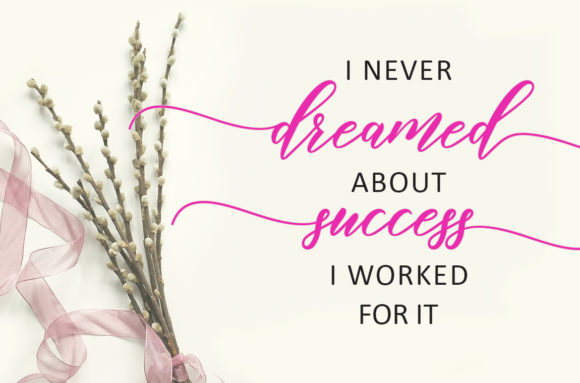
Introduction to Halley Script Font
Have you ever stared at a blank canvas, waiting for the perfect font to bring your creative project to life? That’s exactly what happened to me the first time I laid eyes on the Halley Script Font. Its elegant, handwritten style and charming swashes had me hooked from the very start. I knew right then that I had found a valuable design resource that would elevate my work to the next level.
As a designer, you’re always on the lookout for high-quality fonts that will make your designs stand out. And that’s exactly what the Halley Script Font offers – a beautifully crafted, free download that’s perfect for any creative project. With its transparent background and delicate flourishes, it’s the perfect addition to any design. In this article, we’ll take a closer look at what makes the Halley Script Font so special and why it’s a must-have in your design arsenal.
Key Features of Halley Script Font
- Unique, elegant script design ideal for creative projects and design resources.
- High-quality font with smooth connections between letters, perfect for adding a touch of sophistication to your work.
- Halley Script Font features a transparent background, allowing for seamless integration with any background image or color.
- Designed to be highly legible, even at small font sizes, making it perfect for titles, headings, and other display text.
- High-resolution font, suitable for use in print and digital design applications, including business cards, invitations, and more.
Honest Review: Halley Script Font
I recently had the chance to work with the Halley Script Font, and I must say it’s a fantastic addition to any designer’s toolkit. This free download is perfect for creative projects that require a touch of elegance and sophistication.
- ✨ High-quality design: The Halley Script Font is beautifully crafted, with smooth lines and a cohesive look that makes it perfect for headings and titles.
- ✨ Versatility: It works well with both light and dark backgrounds, making it a great choice for a wide range of design projects.
However, I do have a few minor quibbles ⚠️. The font doesn’t include as many weights as I would have liked, which can make it a bit limiting for some design projects. Additionally, the font doesn’t come with a license for commercial use, which may be a concern for some designers.
Overall, I’m really impressed with the Halley Script Font. It’s a high-quality design resource that’s perfect for designers who want to add a touch of elegance and sophistication to their creative projects. If you’re looking for a beautiful, free font that’s easy to use, I would definitely recommend giving the Halley Script Font a try.
Halley Script Font: A Comprehensive Guide
To maximize the effectiveness of the Halley Script Font, use it sparingly and strategically. Pair it with a clean and simple design to let the font shine. Experiment with different font sizes, colors, and styles to create a unique look. Finally, use the font in conjunction with a high-quality image or texture to add depth and visual interest.
The Halley Script Font is ideal for a variety of creative projects, including wedding invitations, birthday cards, and branding materials. Its elegant and sophisticated design makes it perfect for formal events and high-end marketing campaigns.
Is the Halley Script Font suitable for high-quality print projects?
Yes, the Halley Script Font is designed to be high-quality and suitable for print projects. It features a transparent background, which makes it easy to combine with other design elements. The font is also optimized for high-resolution printing, ensuring that it looks great in print.
Can I use the Halley Script Font on a website with a transparent background?
Yes, the Halley Script Font